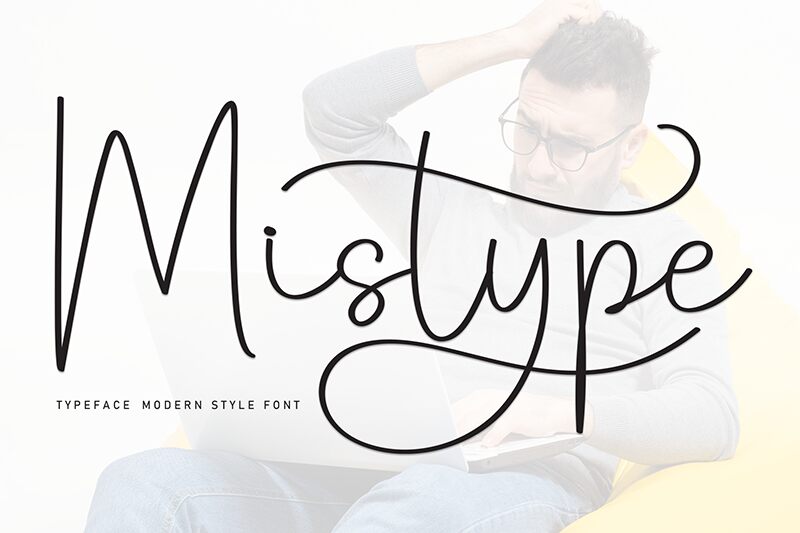
Mistype font
Mistype
Special creative products are designed just for you, providing an extraordinary experience. Our latest style fonts are perfect for a variety of applications, including wall displays, wedding invitations, social media logos, advertisements, product packaging, product designs, labels, photography, watermarks, invitations, stationery, and any project that requires exquisite handwriting.